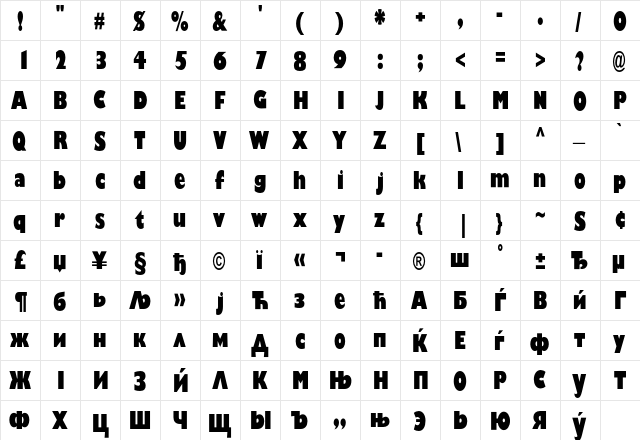
GillSansSA-UltraBoldCondenced Regular Font Preview
Design Context for GillSansSA-UltraBoldCondenced Typeface
GillSansSA-UltraBoldCondenced takes a measured approach to typography — its balanced proportions and neutral character make it a reliable workhorse for both digital and print work. Its bold stroke weight gives it real presence on the page. Its narrow stance lets it pack a punch even in space-constrained designs.